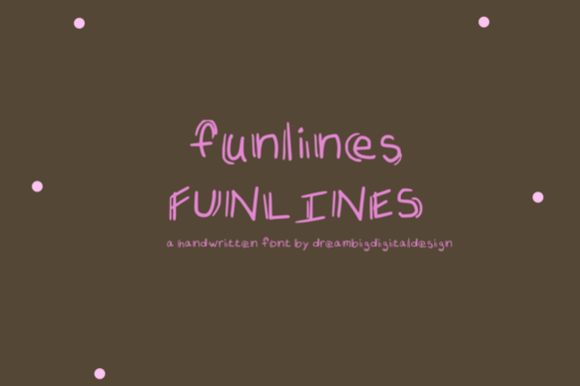
**Express Your Child's Imagination with Funlines: The Perfect Font for Kid-Friendly Creations**
Immerse your little ones in a world of creativity with Funlines, a captivating display font that mirrors the charm of handwritten notes. Its playful and whimsical style evokes a sense of joy and wonder, inviting kids to unleash their boundless imaginations.
Crafted with double text, Funlines lends itself effortlessly to doodles and kid-themed designs. Whether it's personalizing mugs or T-shirts, creating adorable cards or enchanting invitations, this font will transform any project into a unique and memorable masterpiece.
At Dream Big Digital Design, we believe that Funlines isn't just a font—it's a gateway to imagination. It empowers children to express their creativity, foster storytelling skills, and bring their innermost thoughts and dreams to life.
Don't limit your child's imagination to ordinary fonts. Embrace the magic of Funlines and watch their creativity soar!